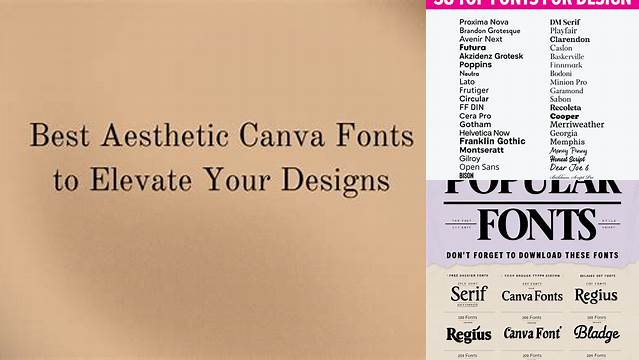
Best Fonts For Edits: Elevate Your Visuals
Hey there, guys! Ever thought about how much of a difference a simple font can make in your edits? Seriously, it's not just about picking something legible; it's about choosing the perfect font that totally transforms your message and makes your visuals pop! Whether you're a seasoned pro or just starting out with your creative projects, understanding the power of fonts for edits is a game-changer. Let's dive deep into making your work stand out, making sure every pixel of text screams quality and style. Get ready to level up your editing game, because we're about to unlock the secrets to choosing, using, and mastering the best fonts out there.
What Exactly Are Editing Fonts?
So, what are editing fonts anyway? Well, think of them as the unsung heroes of your visual content. These aren't just your standard typefaces you see everywhere; these are the specific fonts you choose to enhance everything from your video intros, social media graphics, personal photos, presentations, and even website layouts. Guys, when we talk about fonts for edits, we're referring to the typefaces you actively select and apply within your editing software – be it Photoshop, Premiere Pro, Canva, or even just a simple photo editor on your phone. They're designed to convey mood, improve readability, and create a strong visual identity. It's about finding that sweet spot where aesthetics meet function, making sure your message is not just seen, but felt by your audience. Picking the right font is like picking the right outfit for an event; it sets the tone and makes a lasting impression. So, understanding their nature is step one in mastering your visual storytelling, trust me on this one.
Why Are Fonts Crucial for Edits?
Let's get real for a sec: why are fonts for edits so darn important? It's simple, really. Fonts communicate more than just words; they convey emotions, professionalism, and personality. Imagine a scary movie poster using a bubbly, cartoonish font – it just wouldn't work, right? The right fonts for edits instantly set the mood, grab attention, and guide your viewer's eye. They can make your content look super professional and trustworthy, or fun and playful. Think about branding; major companies spend millions on their fonts because they know it's a huge part of their identity. For your own edits, whether it's for a client, your personal brand, or just a cool project, choosing the perfect font can elevate the perceived quality of your work from amateur to amazing. It creates harmony, strengthens your message, and ensures your audience connects with your visuals on a deeper, more impactful level. Don't underestimate their power; they are silent storytellers.
Choosing the Right Font for Your Edit: A Strategy Guide
Alright, so how do you go about choosing the right font for your edit? This isn't just a random pick, guys; it's a strategic decision! First off, consider the purpose of your edit. Is it for a professional presentation, a funky social media post, or a heartfelt video tribute? The context is everything. Then, think about your target audience – what fonts resonate with them? Are they young and modern, or more traditional? Next, consider the overall aesthetic you're aiming for. Do you want something sleek and minimalist, or bold and expressive? When selecting fonts for edits, always prioritize readability. No matter how cool a font looks, if your audience can't easily read it, it defeats the whole purpose. Don't be afraid to experiment, but always keep your core message and audience at the forefront of your mind. A good strategy also involves looking at font pairings, which we'll get into later, to ensure your choices complement each other perfectly and create a cohesive visual story. It's a journey of discovery, but with these tips, you'll be on the right track.
Top Fonts for Video Edits: Making Your Visuals Pop
When it comes to fonts for video edits, you need typefaces that are clear, impactful, and easy to read on the move. Think about it: your audience is often watching on smaller screens, and text might flash by quickly. So, legibility is king! Popular choices for video, especially for titles and lower thirds, include clean sans-serifs like Montserrat, Open Sans, or Roboto. These fonts are versatile, modern, and hold up well against busy backgrounds. For a more dramatic or cinematic feel, you might explore bold serifs or even some display fonts, but always ensure they don't overpower your footage. Strong, legible fonts are essential for subtitles and captions too, making your content accessible to everyone. Remember, the best fonts for video edits don't just look good; they enhance your narrative, guide the viewer's attention, and add a professional polish that elevates your entire production. Experiment with different weights and colors to match your video's aesthetic, but always test them out on various screen sizes to ensure maximum impact and readability.
Best Fonts for Photo Edits: Enhancing Visual Storytelling
Photo edits are all about visual storytelling, and the right fonts for photo edits can seriously amplify your message. Whether you're adding text to a social media graphic, creating an inspirational quote image, or designing a greeting card, the font choice matters immensely. For photographs, you often want fonts that complement the image without competing with it. Clean, elegant sans-serifs or subtle serifs work wonders for a sophisticated look. Think about fonts like Lato, Oswald, or even a classic like Garamond for a touch of timeless elegance. Script fonts can add a personal, artistic flair, especially for quotes, but use them sparingly to maintain legibility. The key with fonts for photo edits is contrast and placement. Make sure your text stands out from the background – using outlines, shadows, or solid color blocks behind the text can help. Always consider the mood of the photo; a light, airy photo might pair well with a delicate script, while a bold, dynamic shot could benefit from a strong, condensed sans-serif. It's all about making your text part of the overall visual composition, guys.
Essential Fonts for Graphic Design Edits: Beyond the Basics
For graphic design, essential fonts for graphic design edits are literally the building blocks of your visual communication. This field demands versatility, as you're working on everything from logos and posters to brochures and web banners. You'll need a diverse toolkit. Start with a solid foundation of professional sans-serifs like Helvetica (a timeless classic!) or Futura for their clean lines and modern appeal. Don't forget robust serifs like Playfair Display or Lora for headings and a touch of sophistication. Display fonts are your playground for headlines and impactful statements – think about typefaces with unique characteristics that grab attention. Script fonts come in handy for personal touches or elegant designs. The trick with fonts for graphic design edits is knowing how to pair them effectively. You often need contrasting fonts to create visual hierarchy and interest. Guys, good graphic design isn't just about pretty pictures; it's about clear, effective communication, and your font choices play a monumental role in achieving that. Experiment, but always keep your brand's message and the design's purpose at the forefront.
Web Design Fonts for Edits: Optimizing for the Screen
When it comes to web design fonts for edits, the game changes slightly because you're designing specifically for digital screens. Readability on various devices and screen sizes is paramount. Web-safe fonts and Google Fonts are your best friends here, as they load quickly and consistently across browsers. Sans-serifs tend to be highly favored for body text on the web due to their clarity at smaller sizes. Roboto, Open Sans, Lato, and Montserrat are fantastic choices, offering great readability and a modern aesthetic. For headings, you have more freedom to be expressive, perhaps using a bolder serif like Merriweather or a unique display font. The key with web design fonts for edits is to ensure accessibility and performance. Avoid overly decorative fonts for large blocks of text, as they can strain the eyes. Also, consider font weights and line heights for optimal reading experience. Responsive typography, where font sizes adjust based on screen size, is crucial for a great user experience. Remember, your website's typography isn't just about looks; it's about guiding users, conveying information efficiently, and creating a seamless browsing experience. Don't let slow loading or illegible fonts spoil your awesome website, folks!
Fonts for Presentation Edits: Engaging Your Audience
Making a presentation? Then choosing the right fonts for presentation edits is non-negotiable for keeping your audience engaged. You want fonts that are clear, concise, and easy to read from a distance, even in a dimly lit room. Avoid anything too thin, condensed, or overly decorative for the main body text. Stick to strong, legible sans-serifs like Calibri, Arial, Lato, or Roboto for your main points. For headings, you can go a bit bolder or more unique, but ensure they still maintain high legibility. The goal is to convey information quickly and effectively, not to showcase your extensive font library. Simplicity and consistency are key with fonts for presentation edits. Use a maximum of two or three different fonts throughout your entire presentation to maintain a cohesive look. Large font sizes are also critical; don't make your audience squint! Remember, a presentation is about telling a story and delivering information efficiently. Your font choices should support that goal, making your slides easy to digest and visually appealing without distraction. Clarity over complexity is the mantra here, guys.
Serif Fonts for a Classic Edit: Timeless Elegance
When you're aiming for a look that's timeless, sophisticated, and a bit traditional, serif fonts for a classic edit are your go-to. Serifs are those small